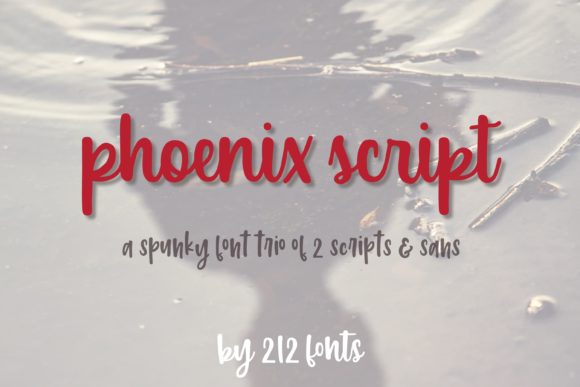
Glide into the realm of enchantment, where letters gracefully weave tales of love and beauty on your wedding invitations. Picture your guests' eyes dancing across the paper, entranced by the exquisite curves and delicate strokes of the Phoenix Script Trio.
Let Phoenix Script's delicate penmanship transport you to a bygone era of elegance and charm. With its three distinct styles – Regular, Italic, and Bold – this font provides a symphony of choices, allowing you to orchestrate a harmonious blend of styles that perfectly captures the essence of your special day.
With Phoenix Script, you'll have the power to paint your words with the colors of your dreams. Crafted with precision and passion, this font effortlessly conveys the emotions of your heartfelt vows, the joy of your celebration, and the eternal bond you share with your soulmate.
Unleash the magic of Phoenix Script and turn your wedding invitations into captivating works of art. Let your guests feel the love, the joy, and the promise shimmering through each perfectly formed letter. Make your wedding an occasion to remember, a testament to the enduring power of love and the beauty of the written word.